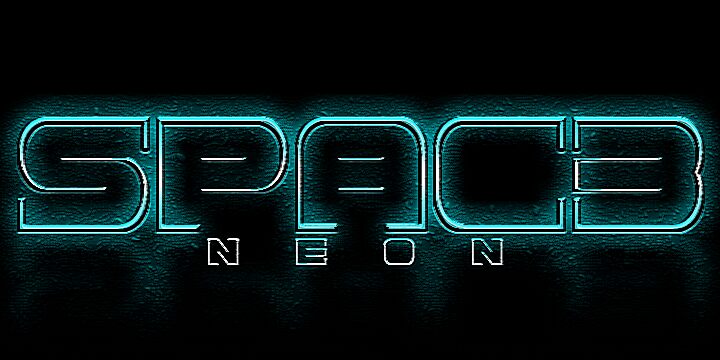
Spac3 Neon by Carlos Matteoli is a free futuristic outlined display font with broad, low-slung letters and a technical finish. Rounded rectangular curves meet sharp diagonal cuts, and recurring breaks give the forms a segmented, fabricated look. The thin strokes keep the wide shapes airy.
Its linear geometry can extend circuit diagrams into the lettering itself, making it useful for game interfaces and electronic music artwork. It also suits science-fiction posters and technology event graphics. For technology branding, the segmented shapes can become a repeatable product motif.